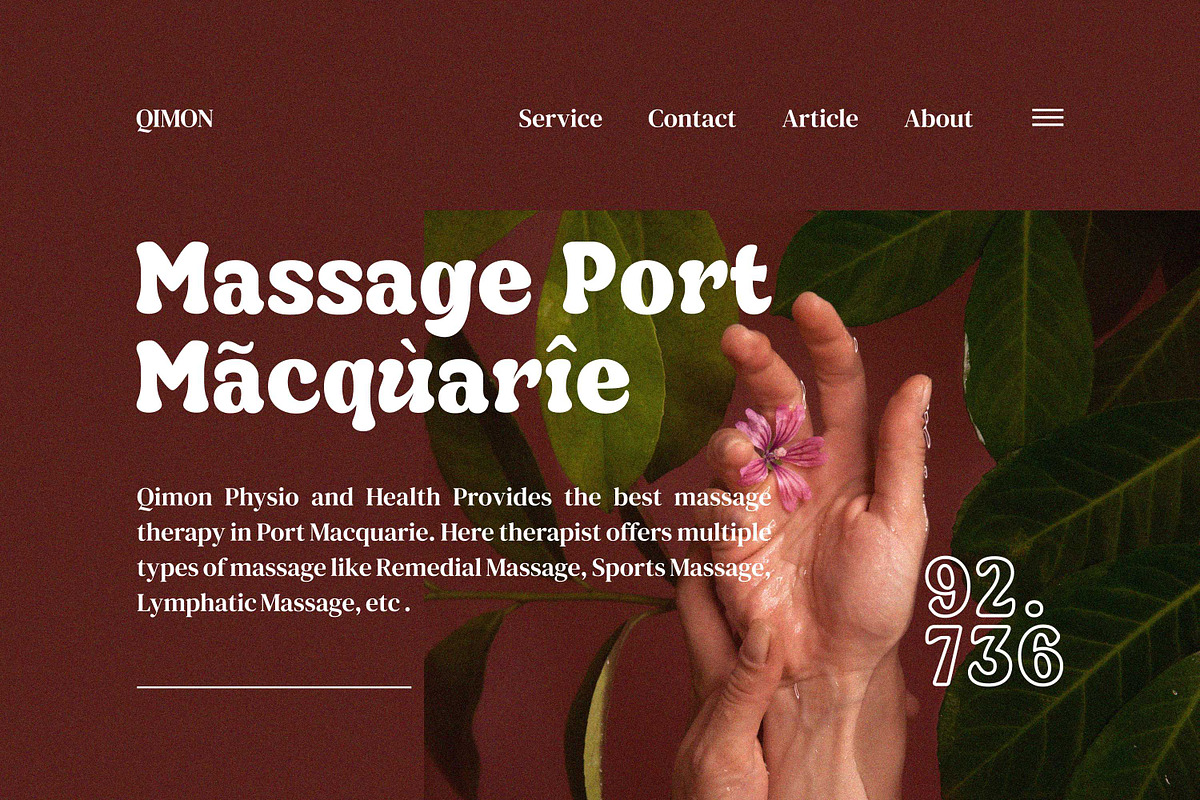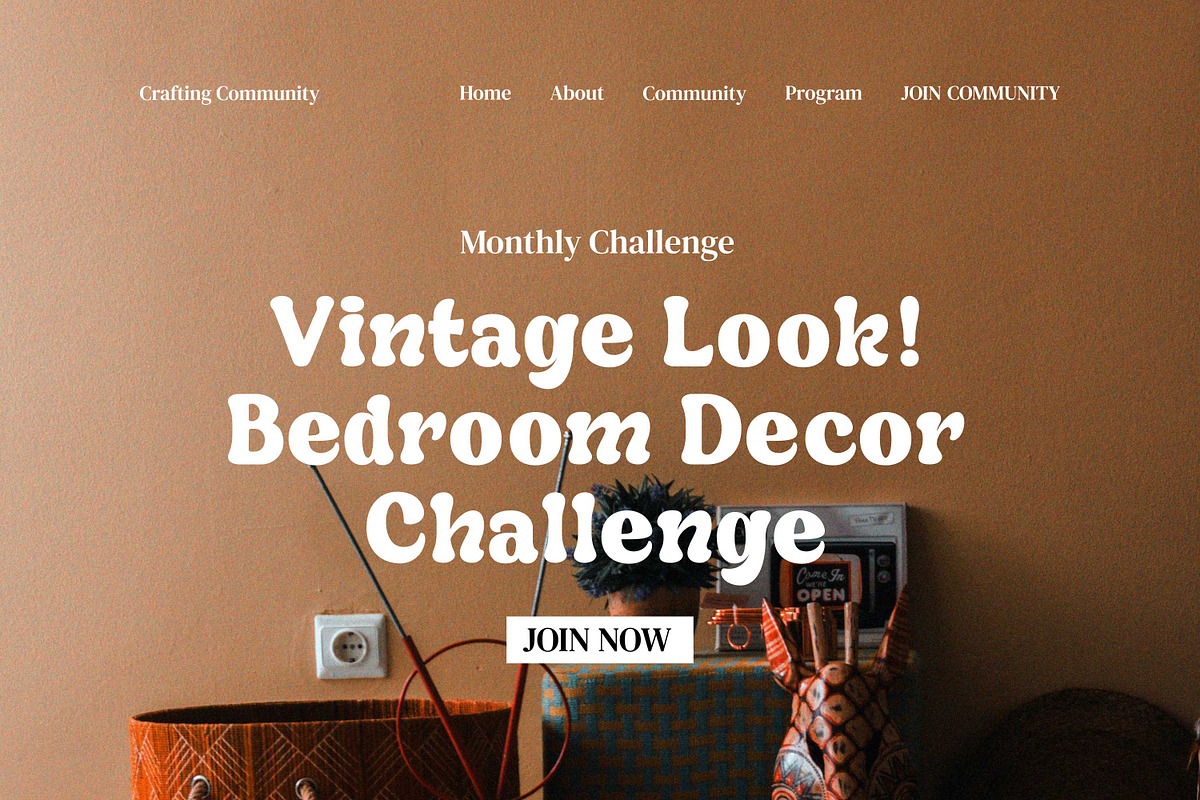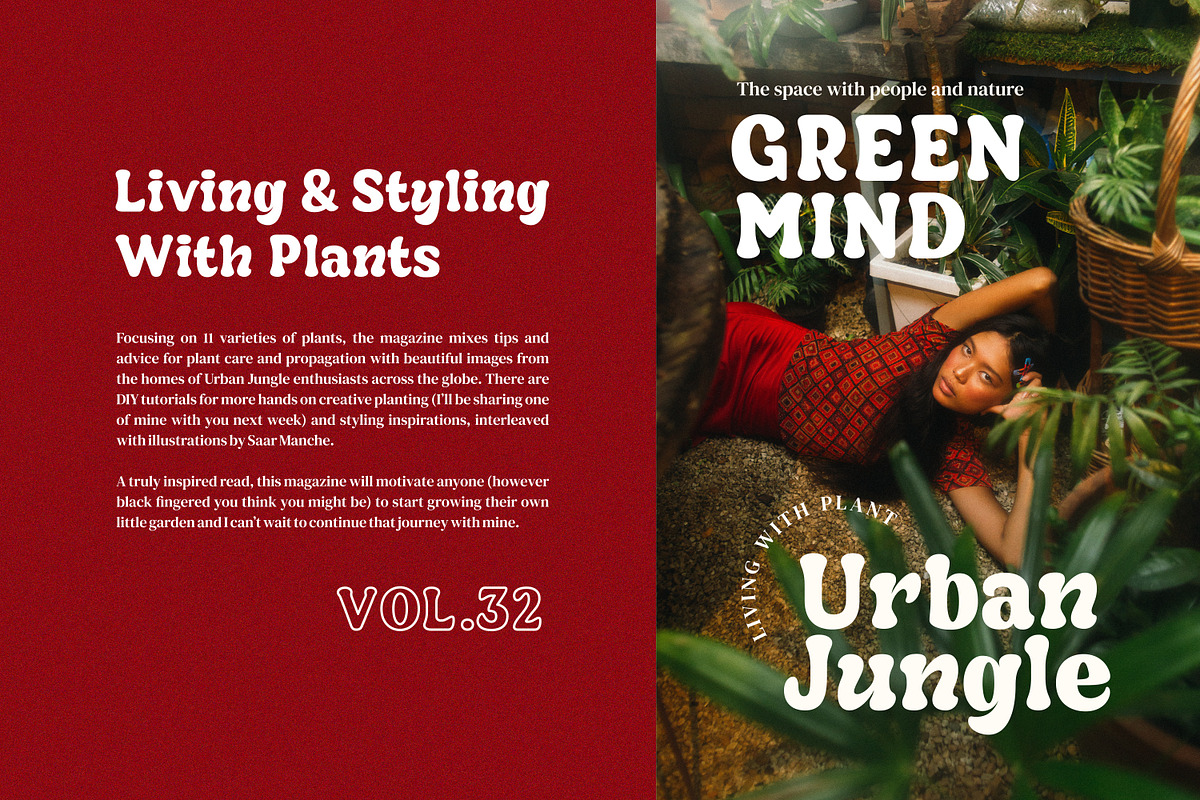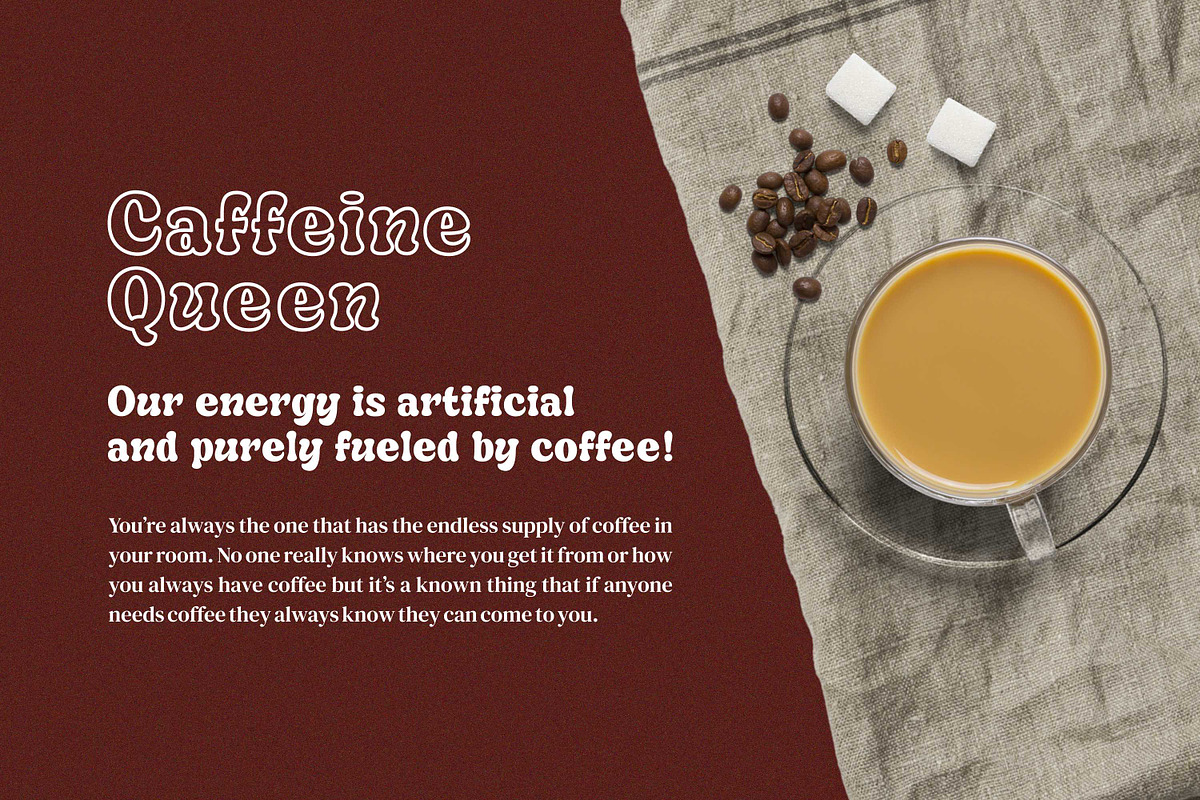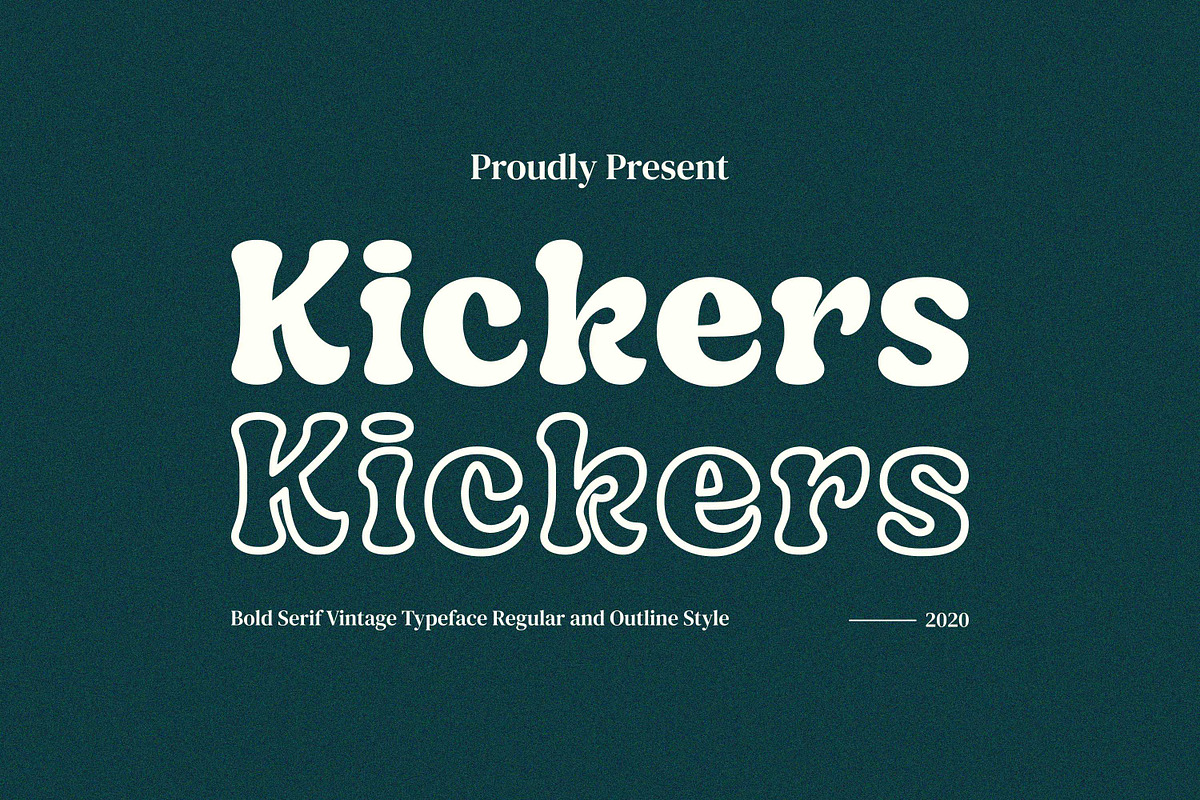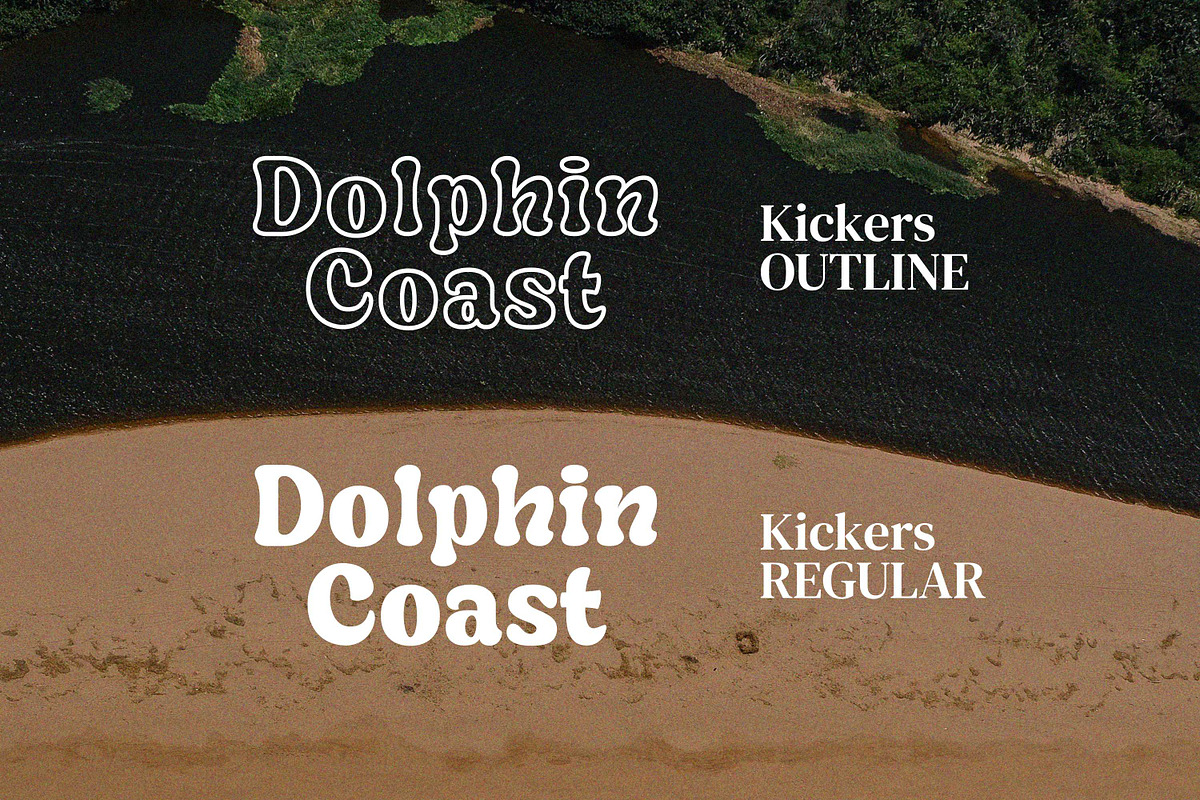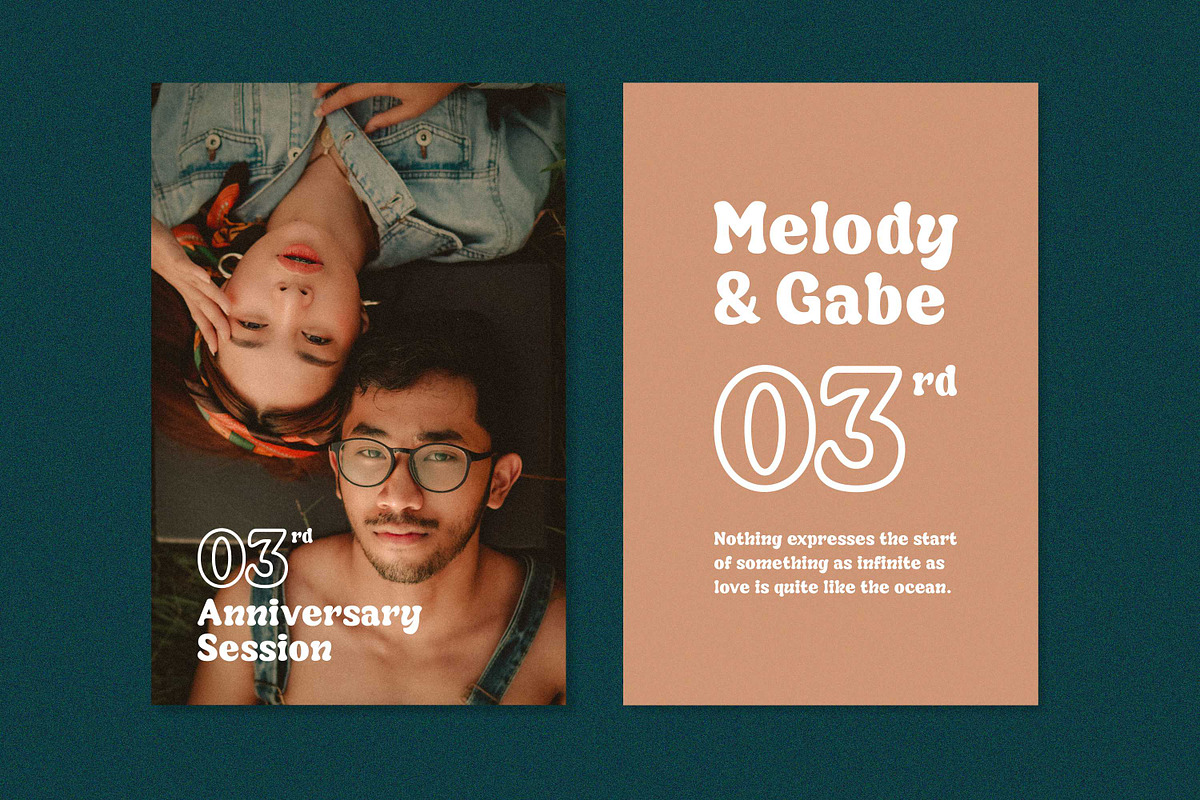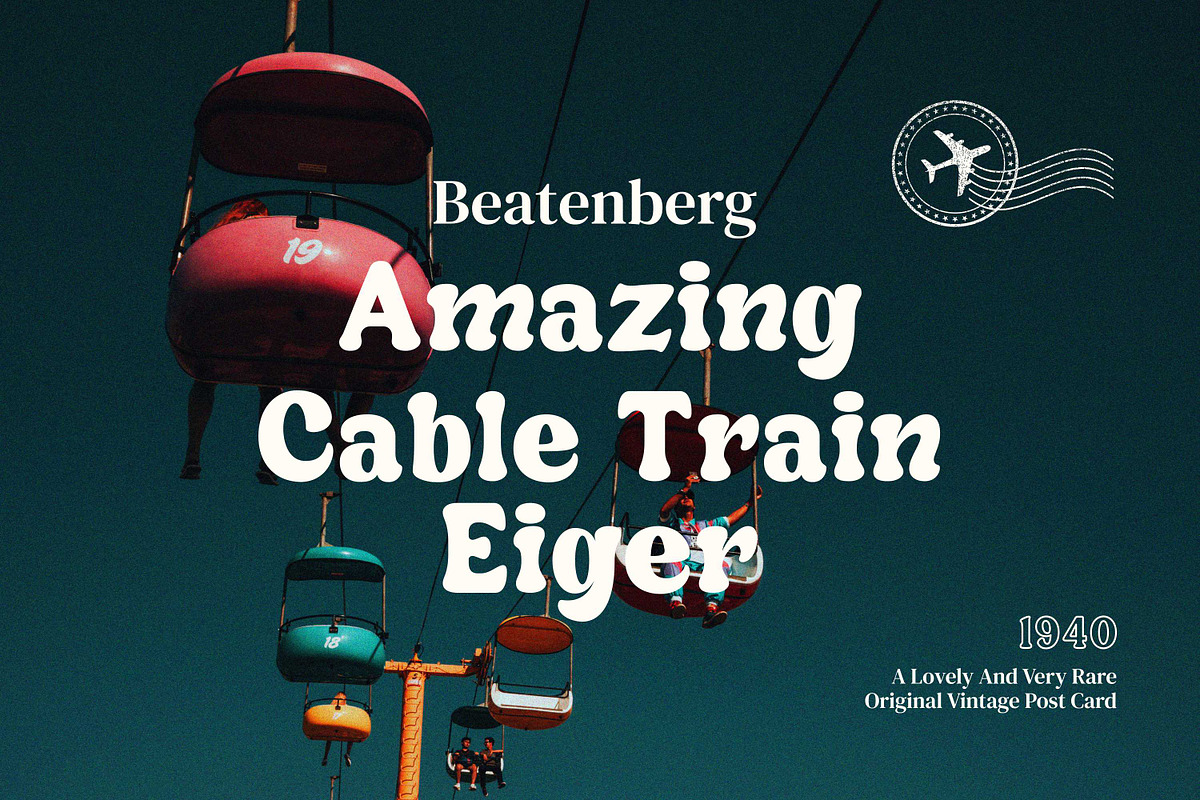
Kickers - Bold Serif Typeface
Kickers is a mix of vintage look and serif styles. The combination of beautiful letter and vintage style serif makes Kickers a versatile that can be used in many different themes of design projects. Available in two styles regular and outline are suitable and ready to be used together for your next design!
Kickers is well-suited for advertising, magazine, branding, logotypes, packaging, titles, headlines and editorial design. It was definitely fun putting together these laid back vintage vibes.
- Kickers Regular
- Kickers Outline